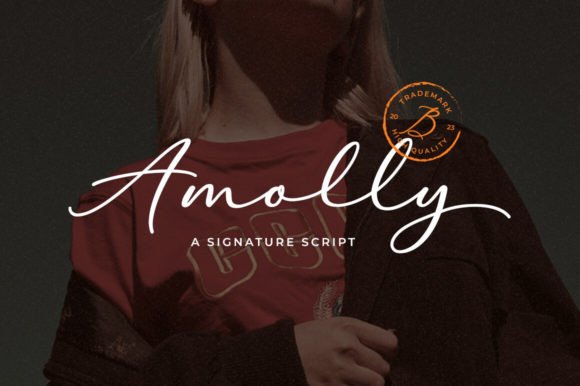
Introducing Amolley Font: The Perfect Handwritten Font for Your Branding Needs
In the world of typography, fonts play a crucial role in conveying the tone and personality of a brand. A well-chosen font can elevate your brand’s visual identity and make it more memorable. If you’re looking for a unique and stylish handwritten font that can help you stand out, look no further than Amolley Font. In this article, we’ll explore the features and benefits of Amolley Font and how it can be used to enhance your branding, marketing, and design projects.
What is Amolley Font?
Amolley Font is a beautiful handwritten font that is designed to be versatile and elegant. Its unique and flowing script makes it perfect for a variety of design applications, from branding and advertising to wedding invitations and product packaging. The font is carefully crafted to convey a sense of sophistication and luxury, making it ideal for high-end brands and businesses.
What Can I Use Amolley Font For?
Amolley Font is a highly versatile font that can be used for a wide range of design projects, including:
- Branding: Use Amolley Font to create a unique and memorable logo for your business or brand.
- Signature: Add a personal touch to your email signature or business cards with Amolley Font.
- Wedding Invitation: Make your wedding invitation stand out with the elegant and sophisticated look of Amolley Font.
- Promotion: Use Amolley Font to create eye-catching promotional materials, such as flyers, brochures, and posters.
- Product Packaging: Add a touch of luxury to your product packaging with Amolley Font.
Benefits of Using Amolley Font
So, why choose Amolley Font for your design projects? Here are just a few benefits of using this beautiful handwritten font:
- Unique and Memorable: Amolley Font is a one-of-a-kind font that will help your brand stand out from the competition.
- Elegant and Sophisticated: The font’s flowing script and elegant lines make it perfect for high-end brands and businesses.
- Versatile: Amolley Font can be used for a wide range of design applications, from branding and advertising to wedding invitations and product packaging.
- Easy to Read: Despite its elegant and cursive nature, Amolley Font is easy to read and understand, making it perfect for body text and headlines.
Tips for Using Amolley Font
To get the most out of Amolley Font, here are a few tips to keep in mind:
- Use it Sparingly: While Amolley Font is beautiful, it’s best to use it sparingly to avoid overwhelming your design. Use it for headlines, titles, or key messages to add emphasis and elegance.
- Pair it with a Simple Font: To create visual interest and hierarchy, pair Amolley Font with a simple and clean font for body text.
- Experiment with Colors: Amolley Font looks great in a variety of colors, so don’t be afraid to experiment and find the perfect hue for your design.
In conclusion, Amolley Font is a beautiful and versatile handwritten font that is perfect for a wide range of design applications. Its unique and elegant script makes it ideal for branding, advertising, wedding invitations, product packaging, and more. With its ease of use and flexibility, Amolley Font is a great addition to any designer’s toolkit.